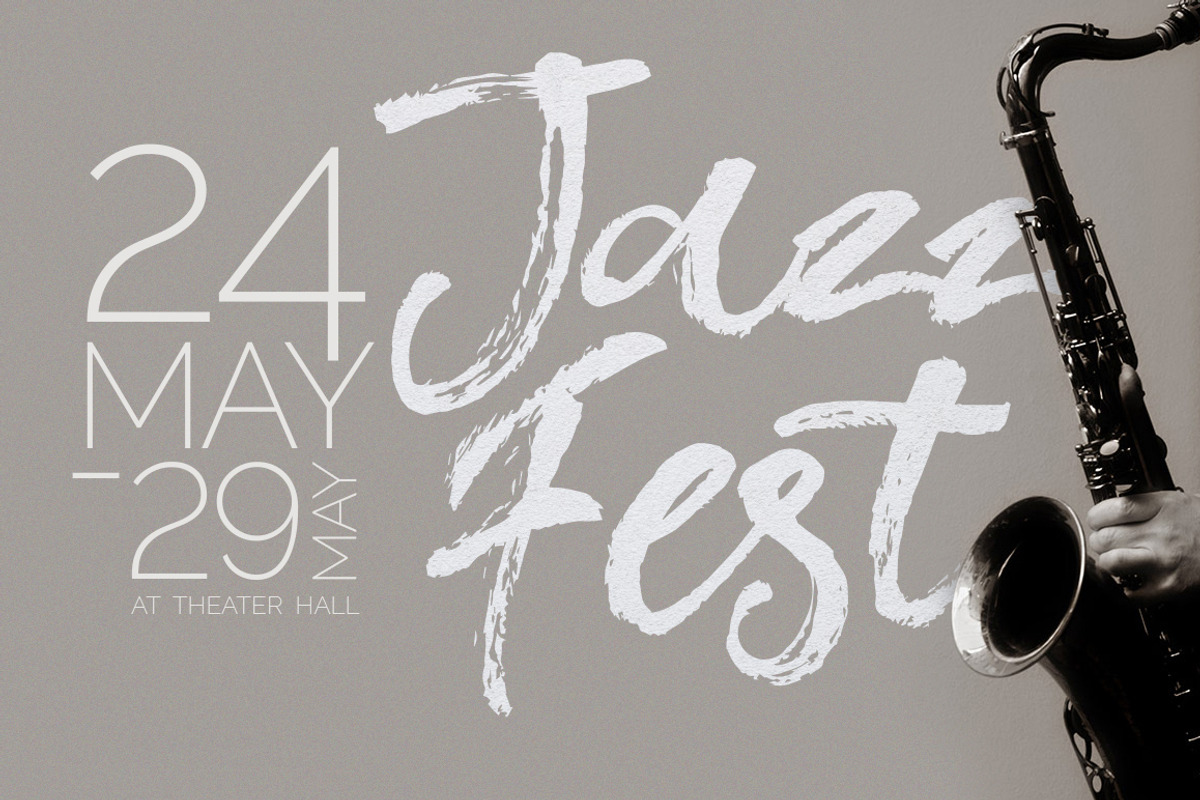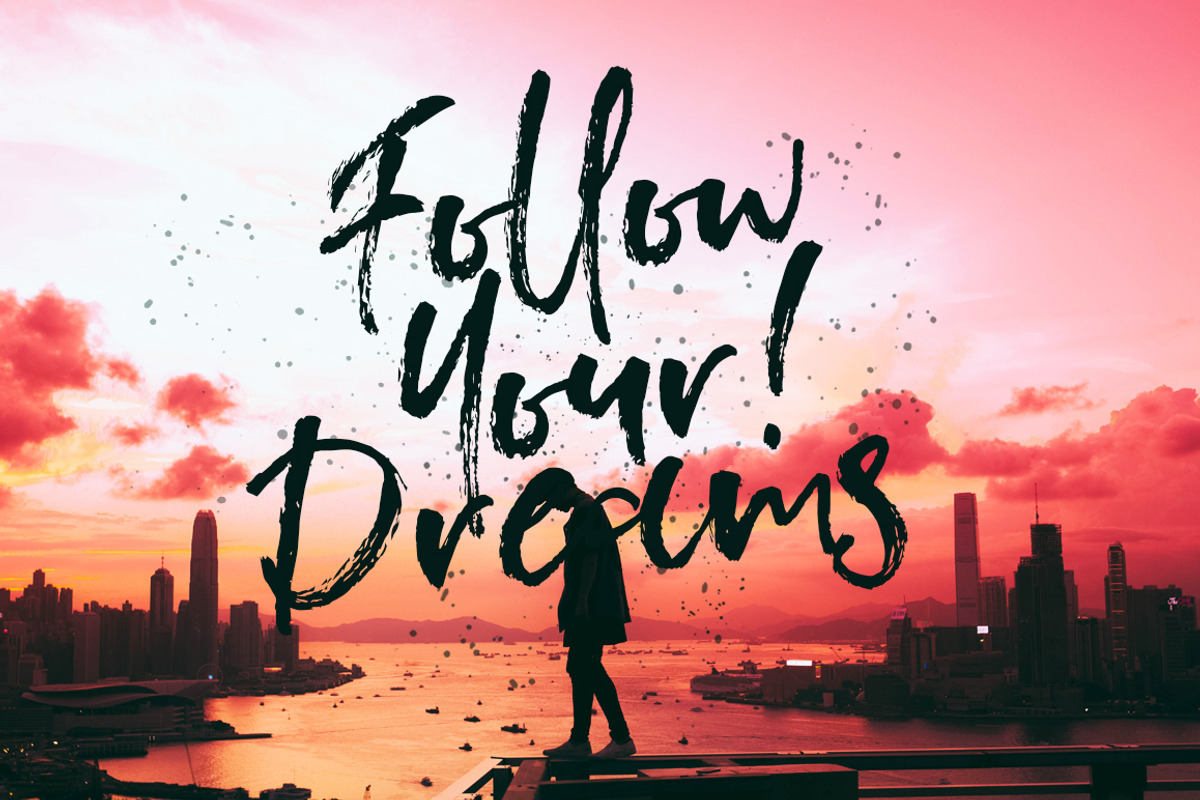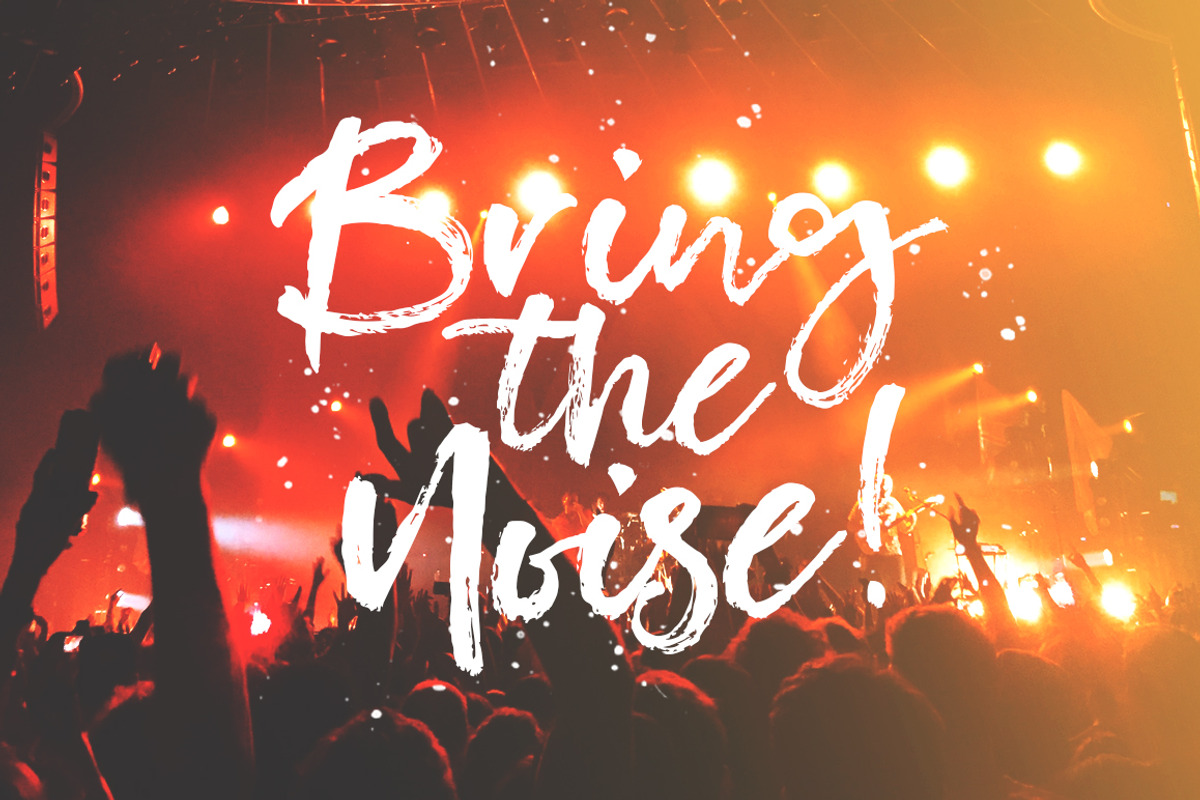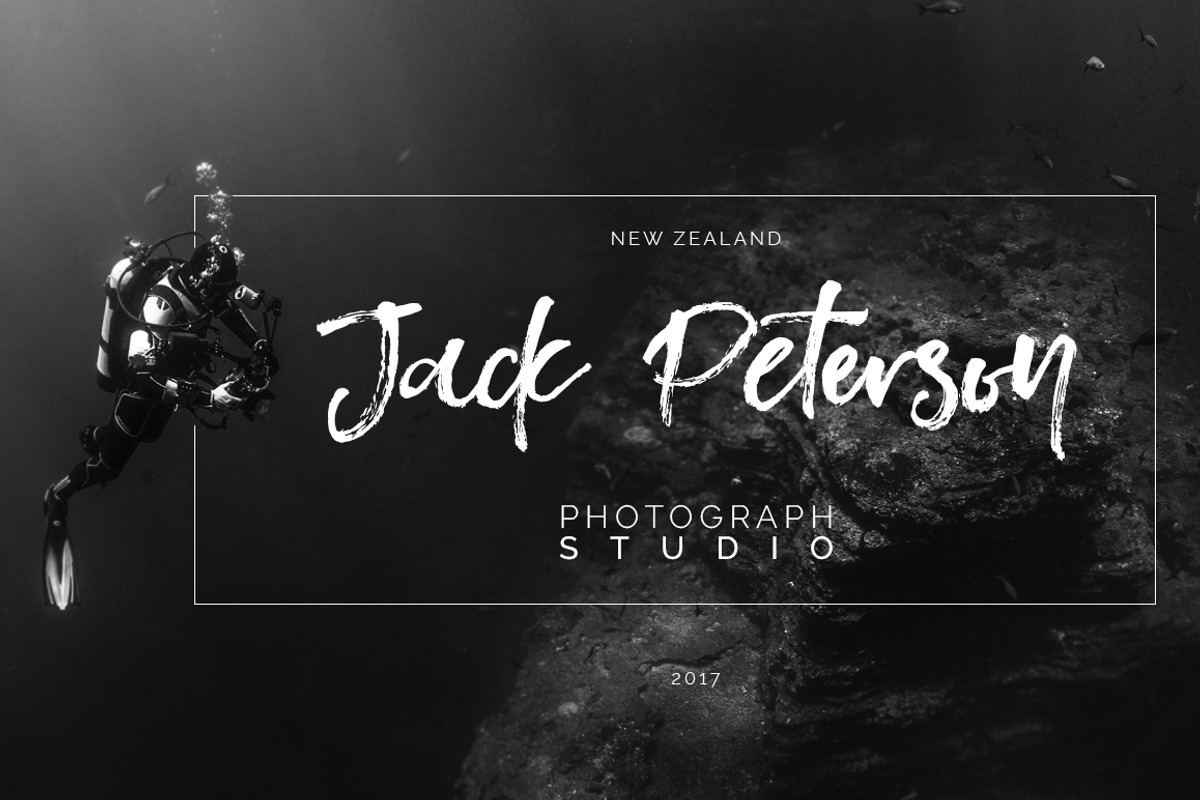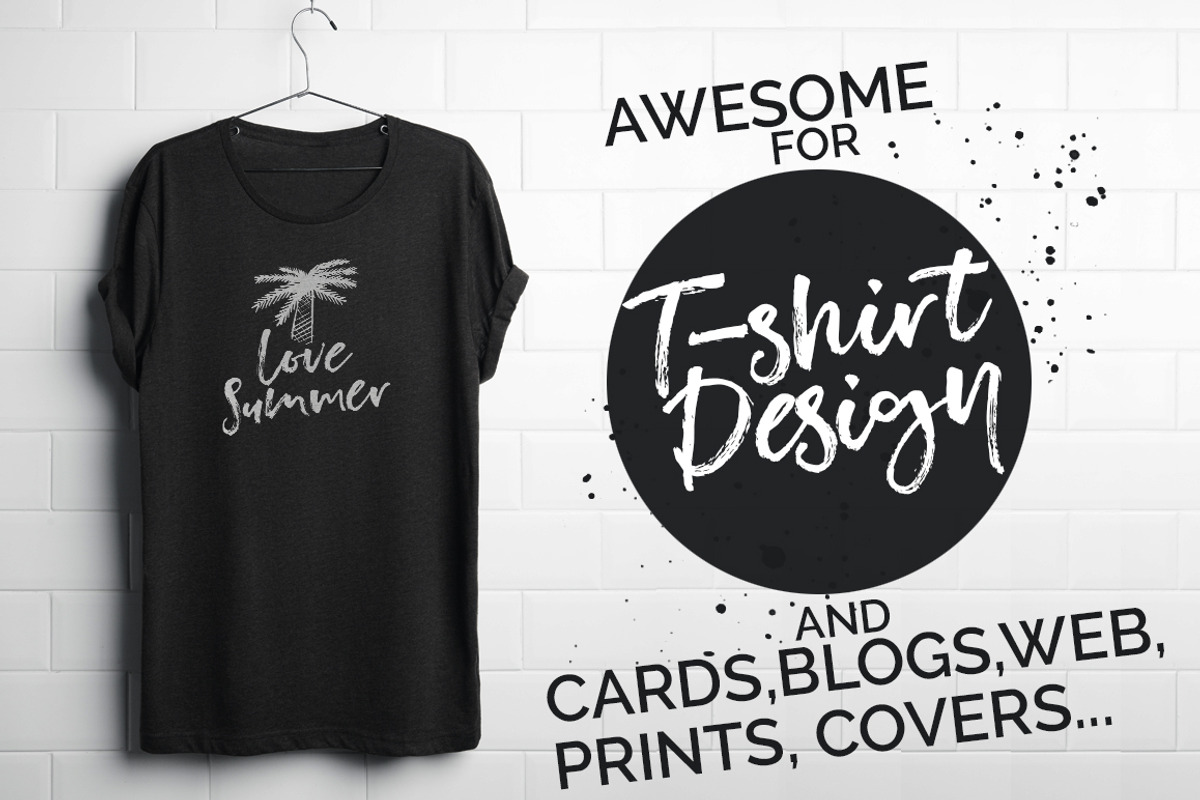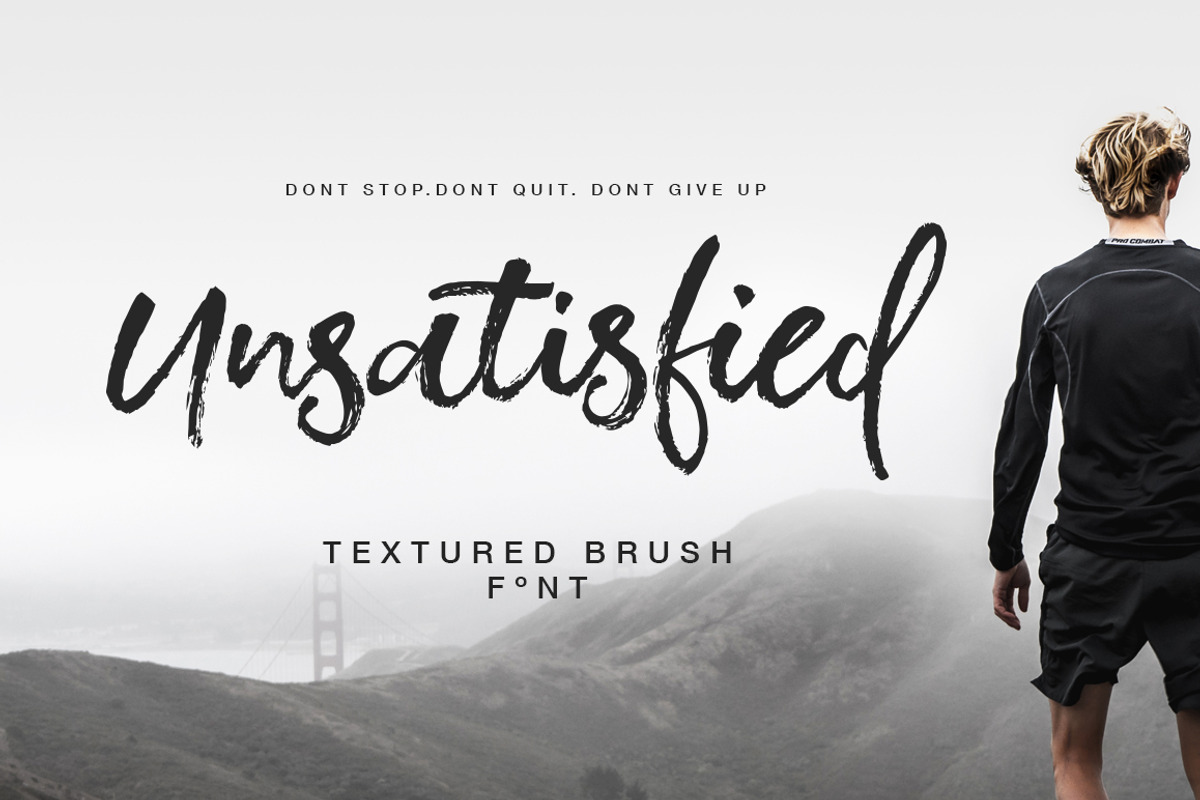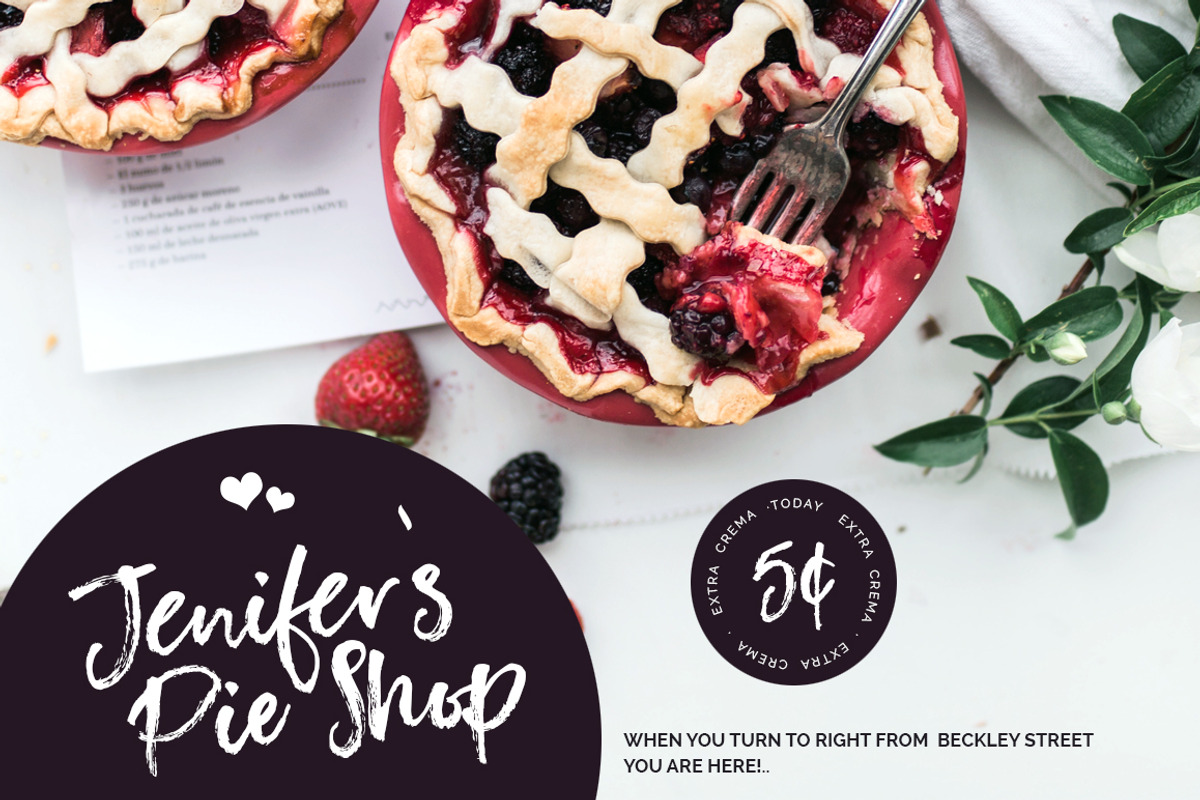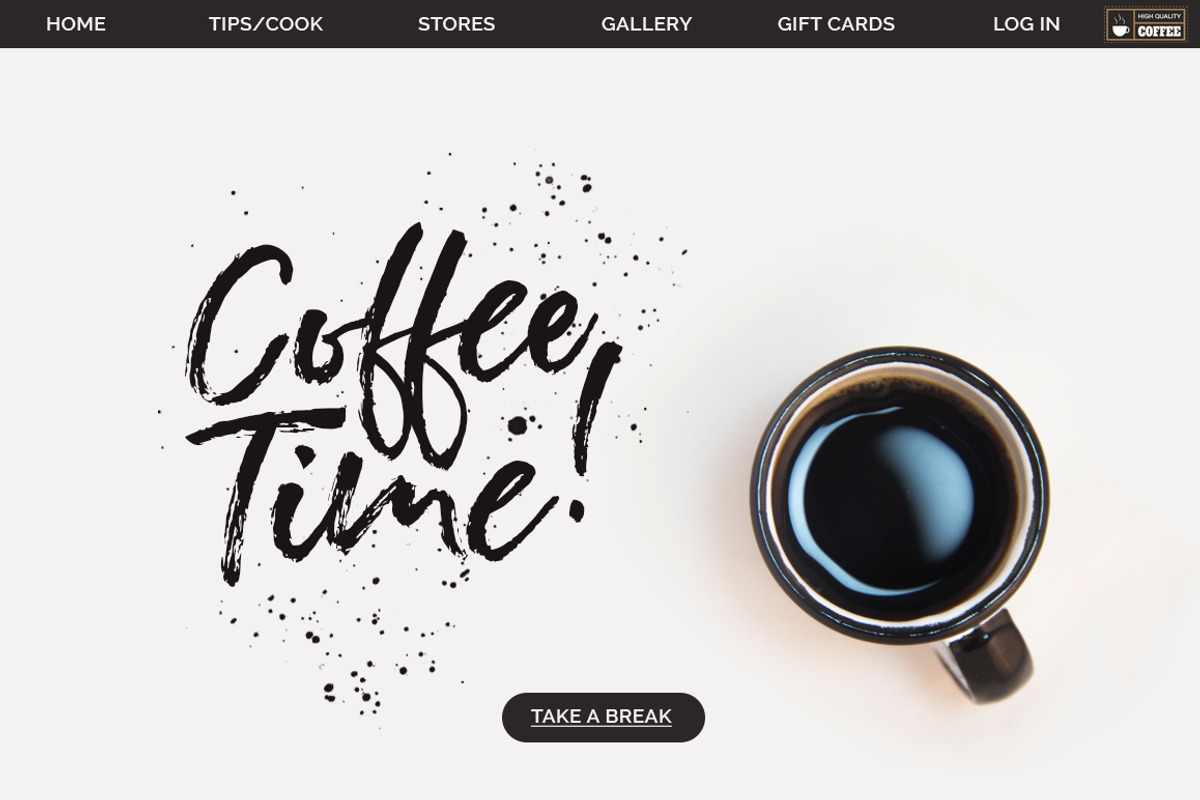
Unsatisfied Brush Font
Unsatisfied Brush Font by Yasir Ekinci is a font selected for branding, posters, packaging, typography.
- Hundreds of glyphs, great language support , alternate characters...Dry brush effect.
Why Unsatisfied Brush Font is worth a look
Unsatisfied Brush Font by Yasir Ekinci fits naturally into Branding, posters, packaging, typography.